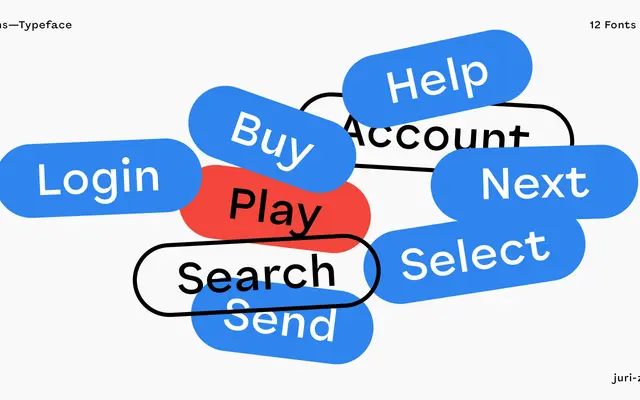
Ralphi Sans
A geometric sans with deliberate warmth built in, designed specifically for screen interfaces and branding that wants personality alongside precision.
Ralphi Sans sits within the geometric sans genre but departs from its usual austerity through exaggerated tails, finials and generous proportions that give the face an informal, approachable quality. The design accounts for screen rendering at small sizes with deep joints that keep letterform connections open and crisp, complemented by automatic hinting. Six weights from Thin to ExtraBold, each with a matching italic, offer range across interface and branding contexts, and a variable font version is included.
Described explicitly as a geometric typeface, but one that introduces warmth through exaggerated tails, finials and generously wide proportions, placing it squarely in the geometric sans category with humanist inflections.